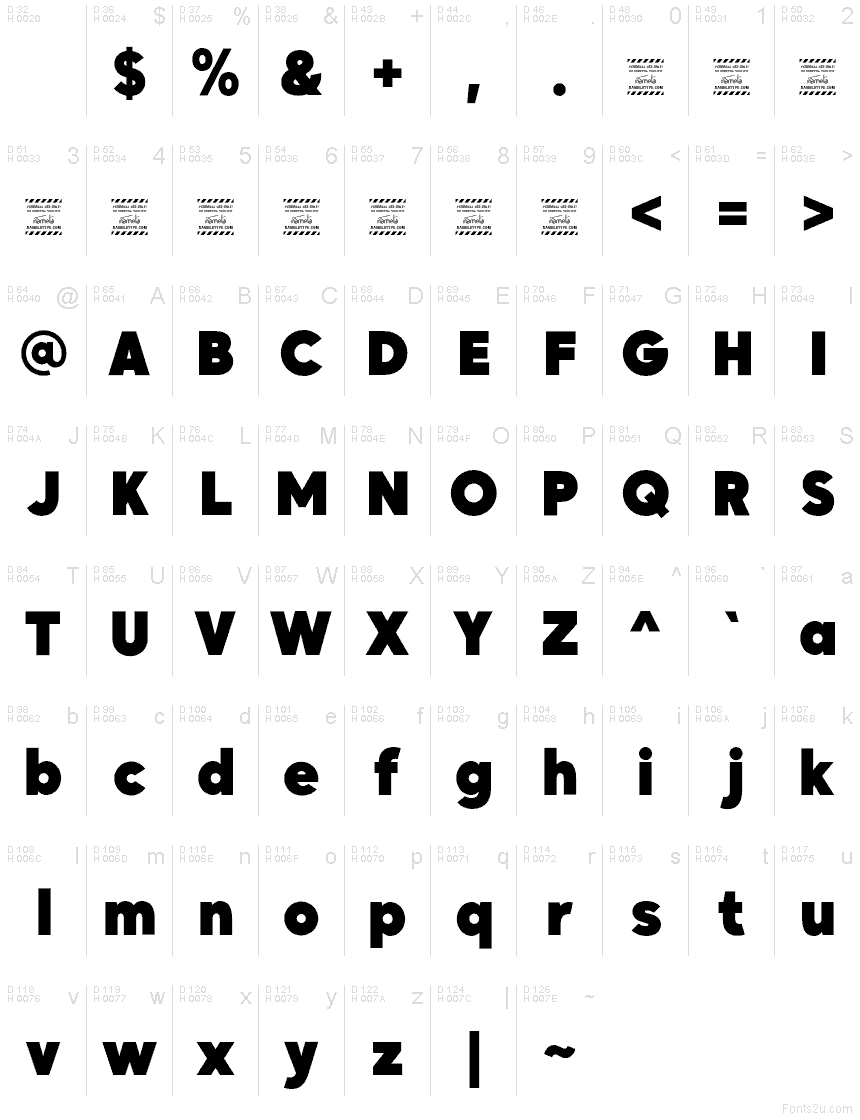
Madani Arabic DEMO Black
Madani Arabic Black font by Namela Type is a minimalist geometric typeface that shows off an ideal combination of modernity and legibility. This bold sans serif font with equally strong presence ensures professional presentations made even better with unique displays that are provided by the fonts special characters.
There are times when a simple design can present itself as lackluster, which is why designers will appreciate this font ability to make white collared brand names, position titles, credentials, posters and more appear vibrant. Add it to packaging projects for both the front informative section in small details or the headline where your healthy product’s name can be instantly recognized.